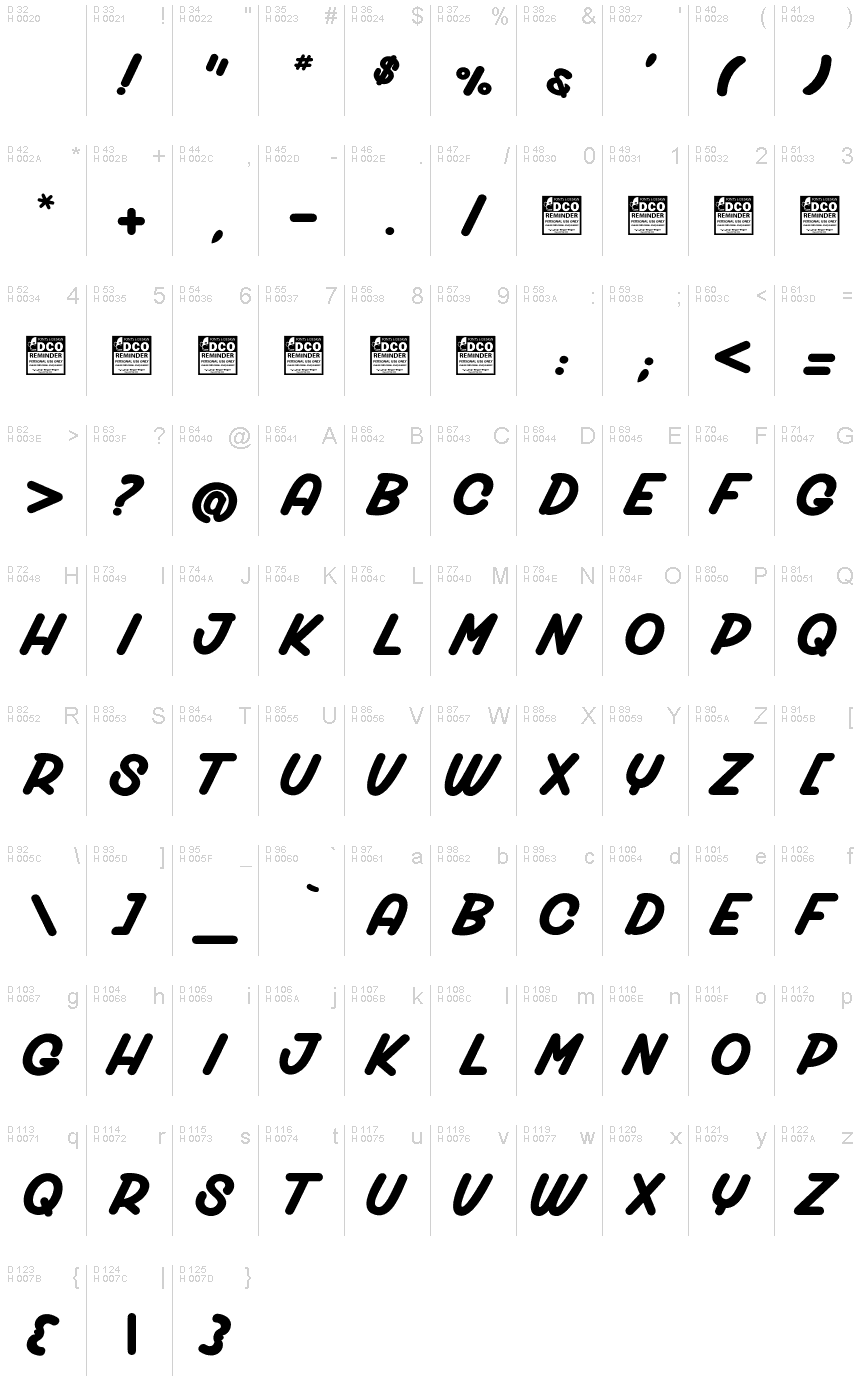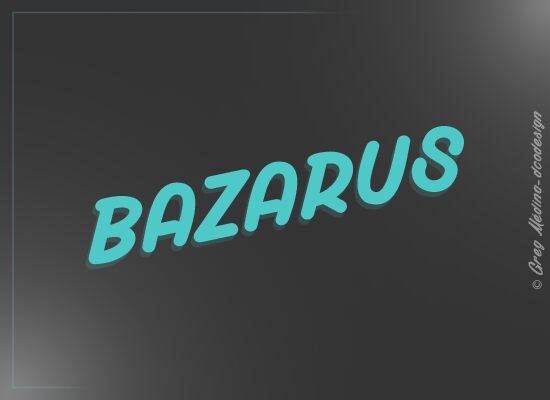
Bazarus, a captivating handwritten font crafted by the talented designer dcoxy - Greg Medina, brings a touch of elegance to your projects. With its uppercase letters and blockletter style, Bazarus exudes a sense of boldness and creativity.
Perfect for invitations, greeting cards, and personalized stationery, this font adds a unique and sophisticated charm to any design. Whether you're working on wedding announcements or branding materials for a boutique fashion label, Bazarus is the ideal choice to captivate your audience with its expressive strokes and refined aesthetic.